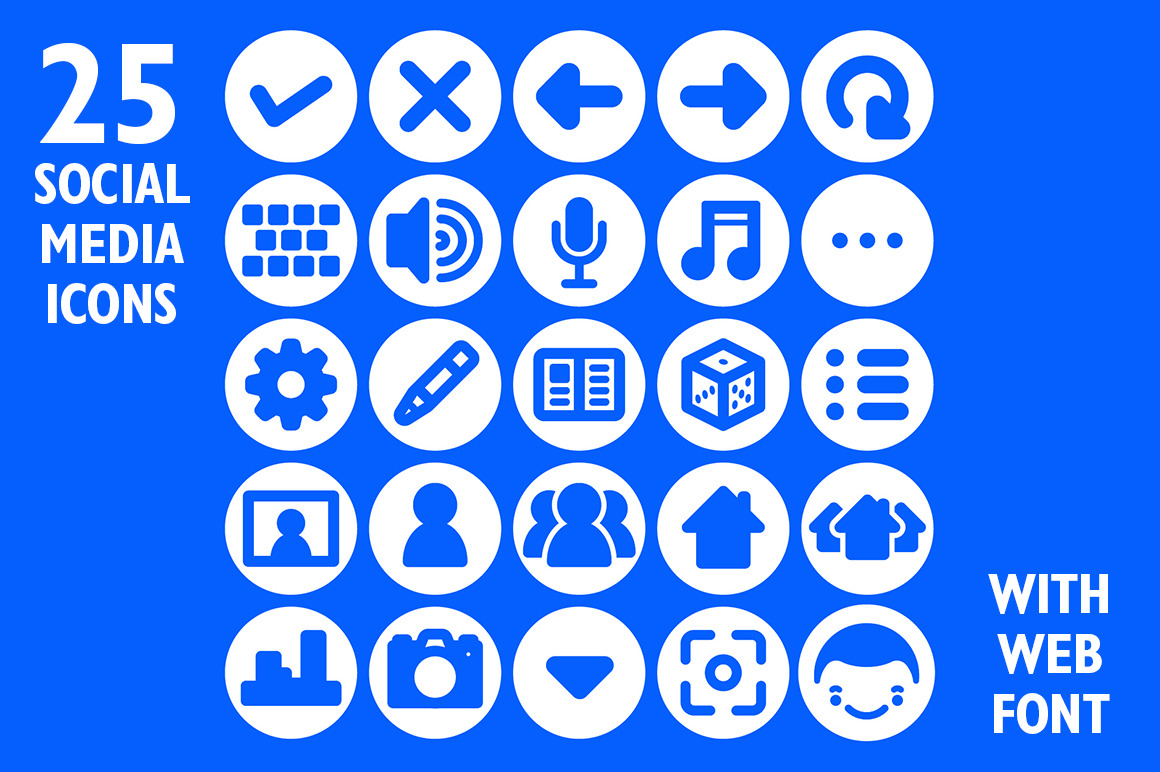
Social Media App Icon Set & Web Font
25 social media icon set design including Fontello web font for your online site or app
Vector icon set for mobile devices apps and web sites graphic users interfaces. Multimedia and social icons for online platforms, apps and video games in desktop computers, laptops, tablets and smartphones
Fontello webfont Symbols ready to be used as a font in web pages, wordpress and mobile apps.
- 3 different styles included. (3D red, silver and flat)